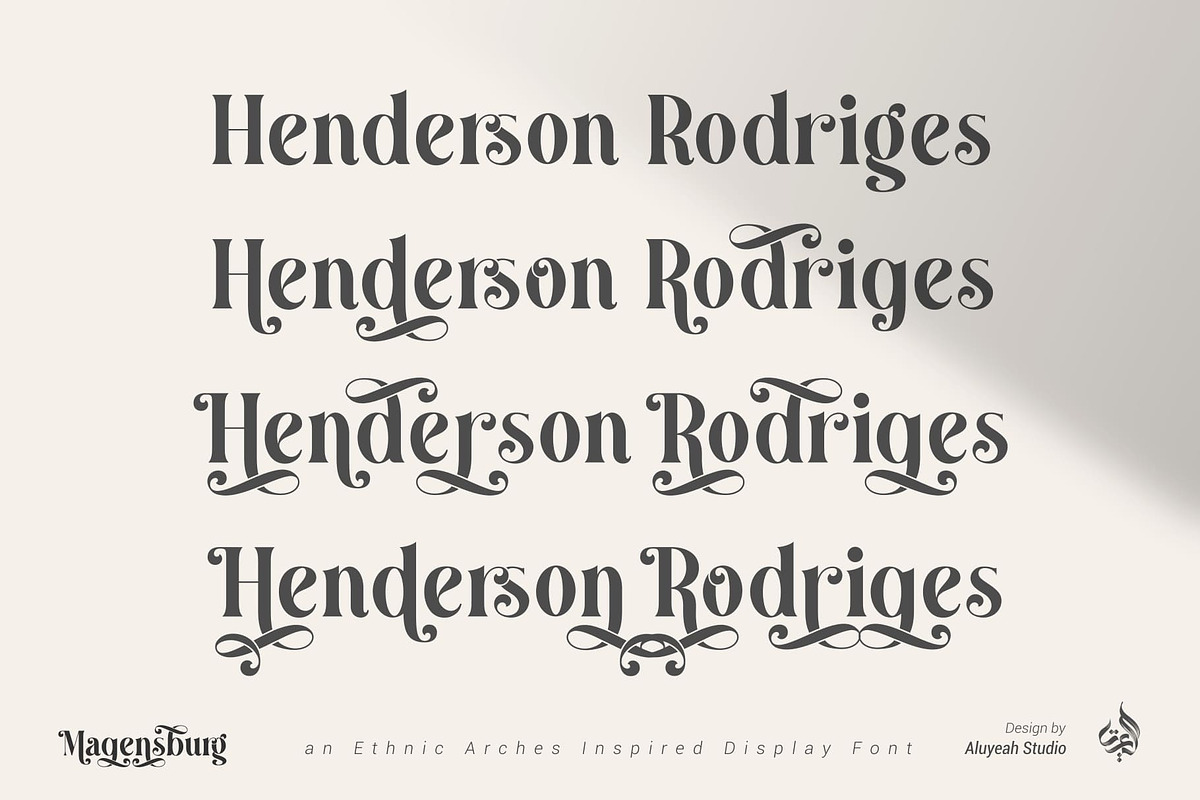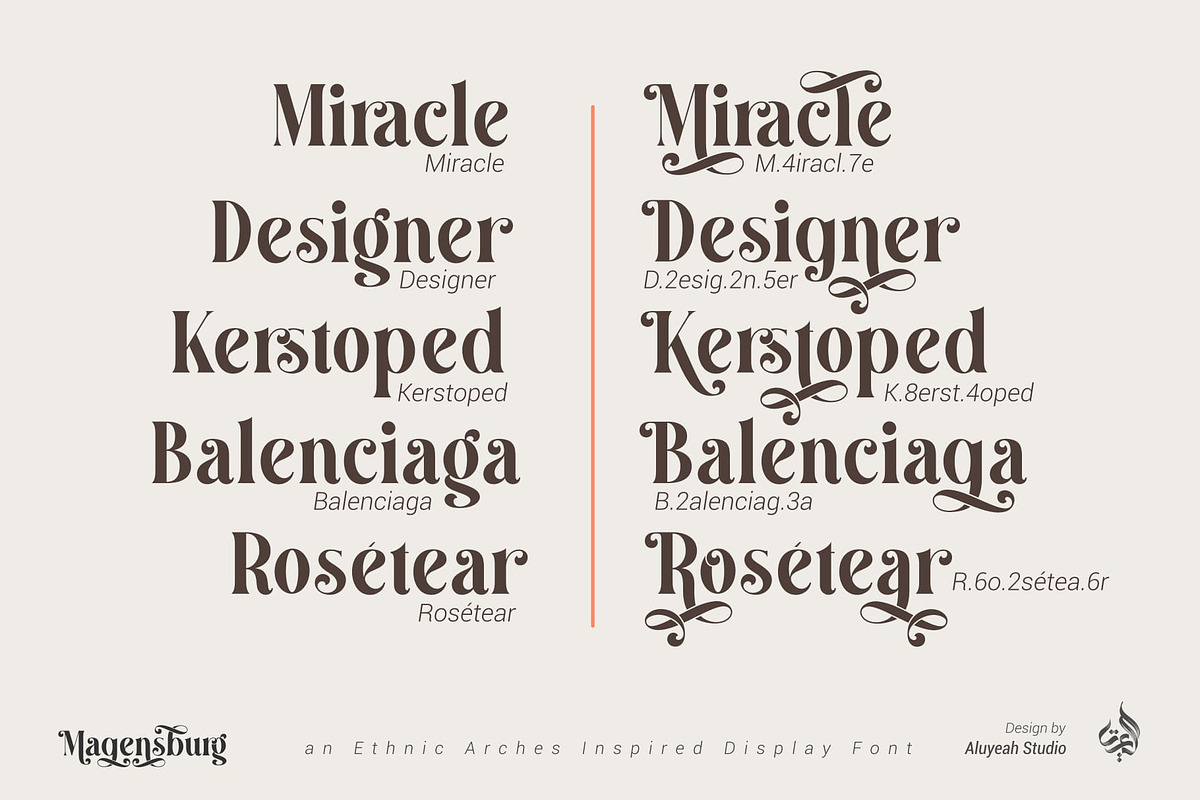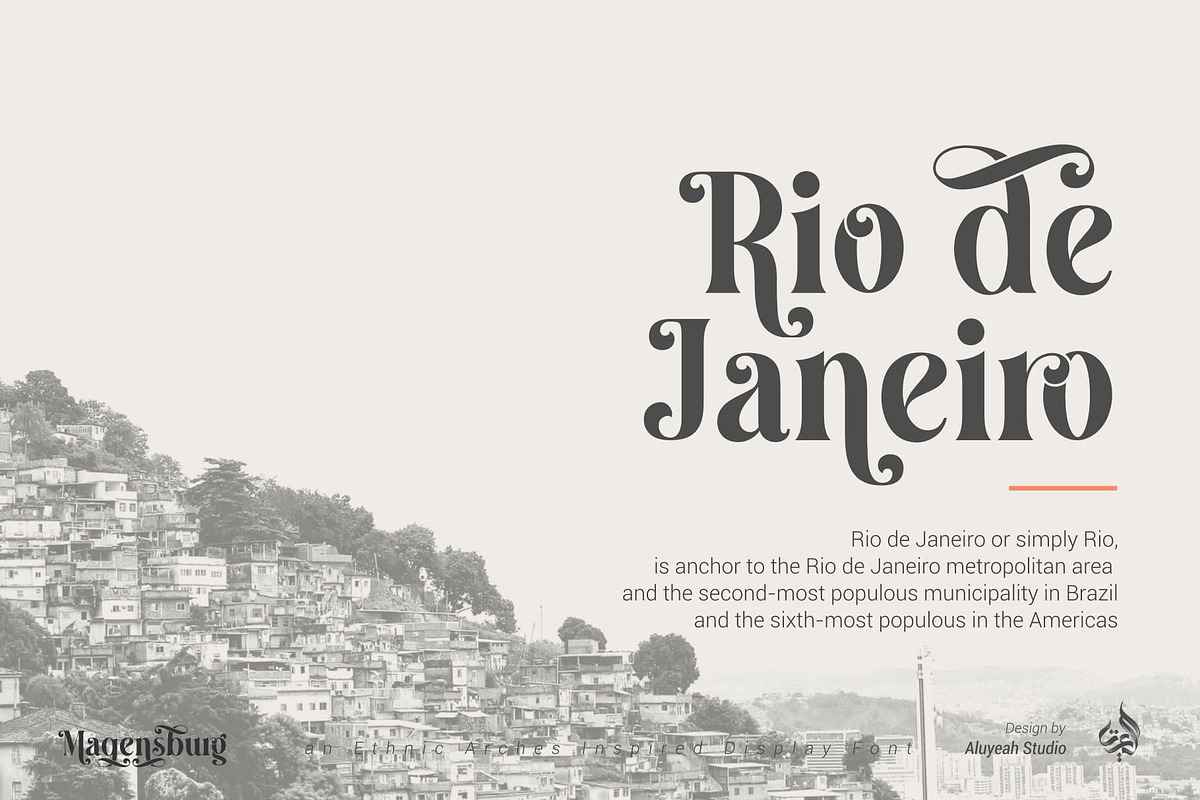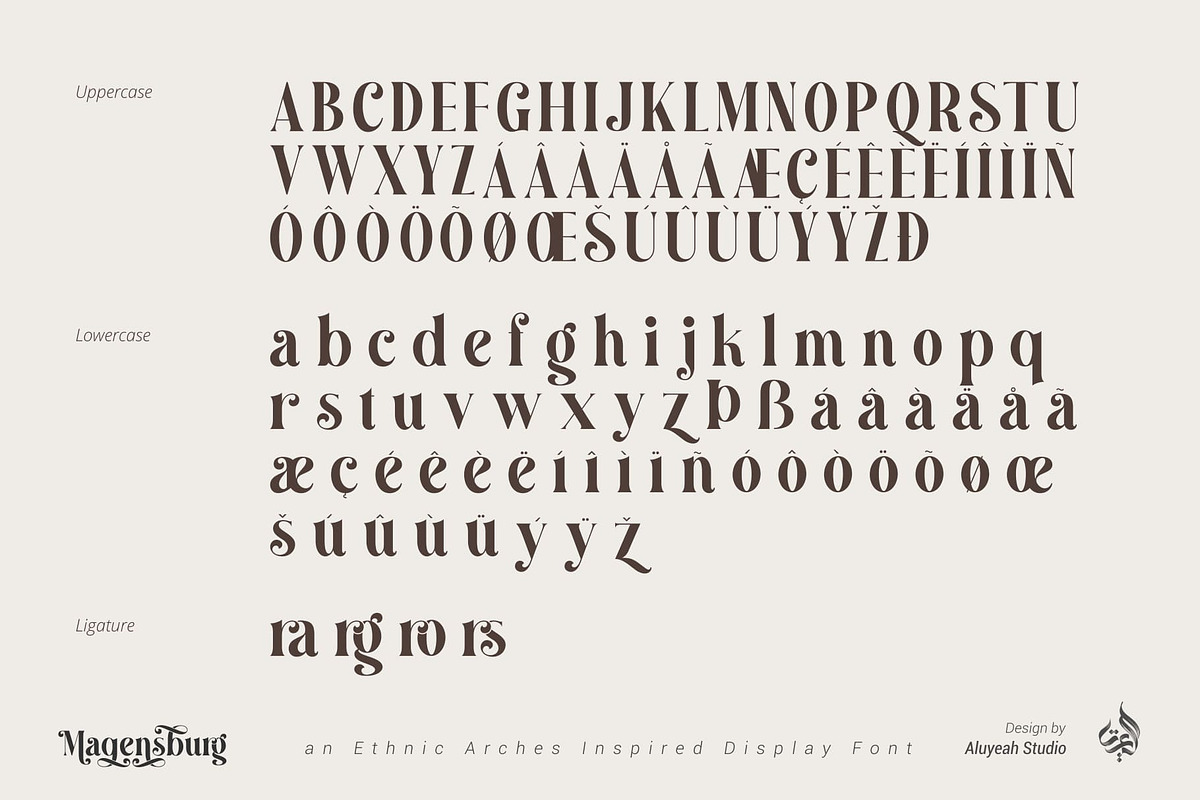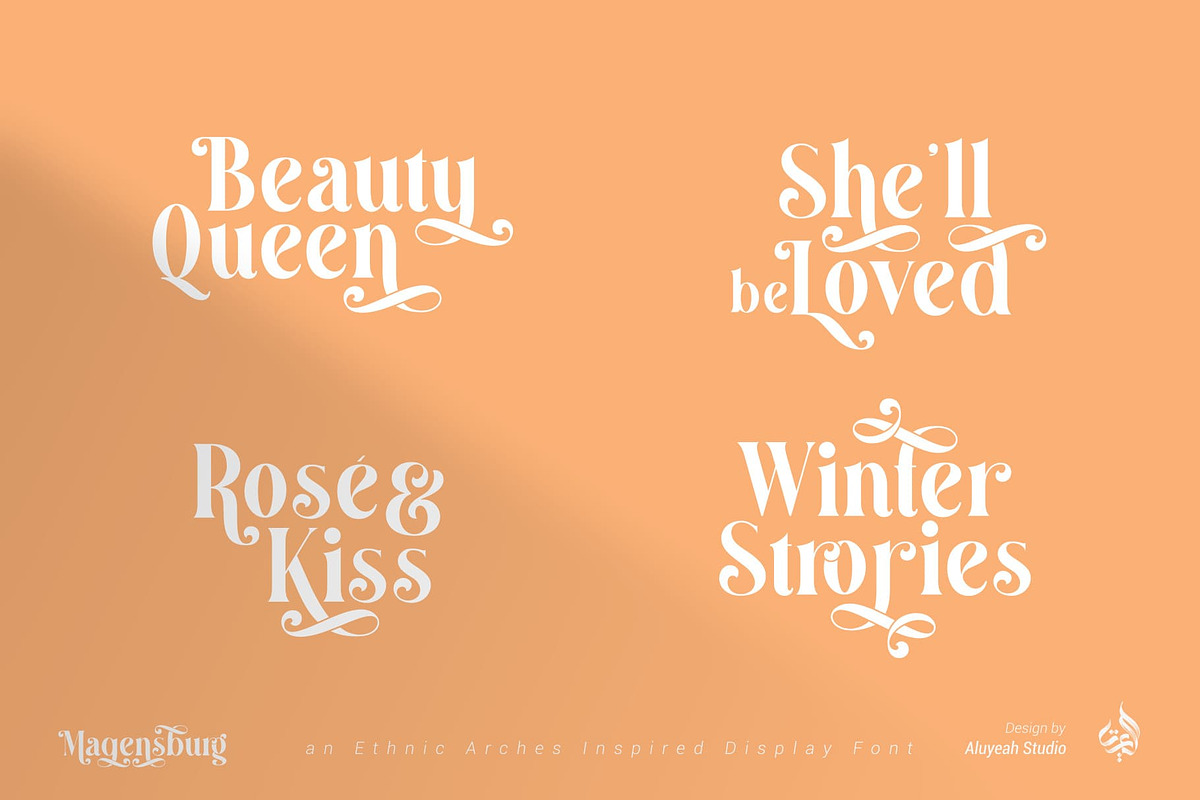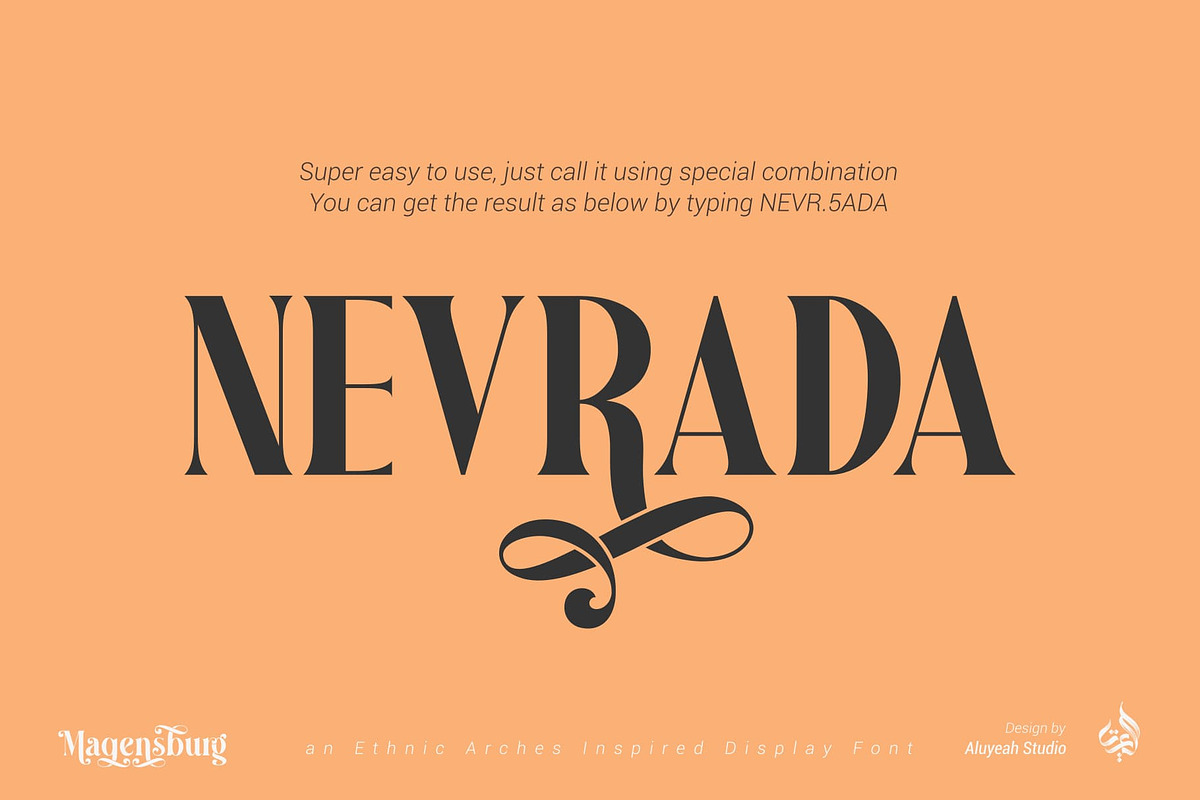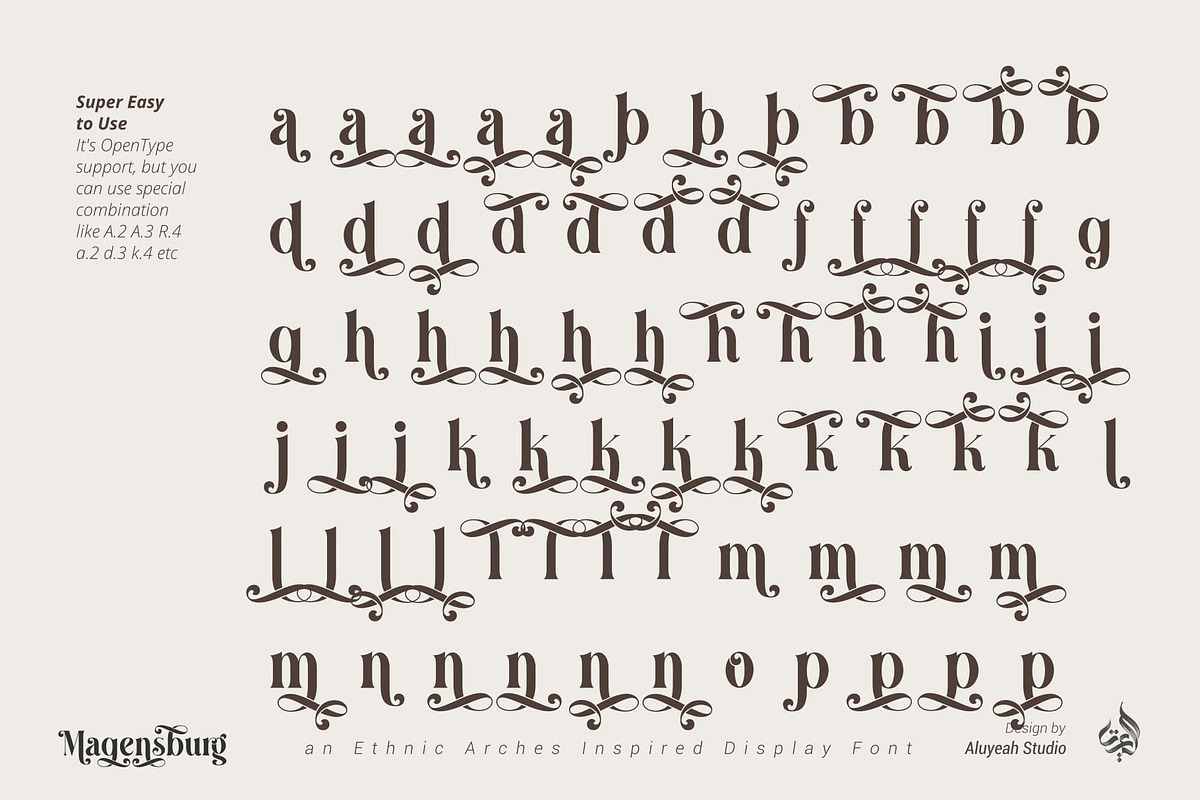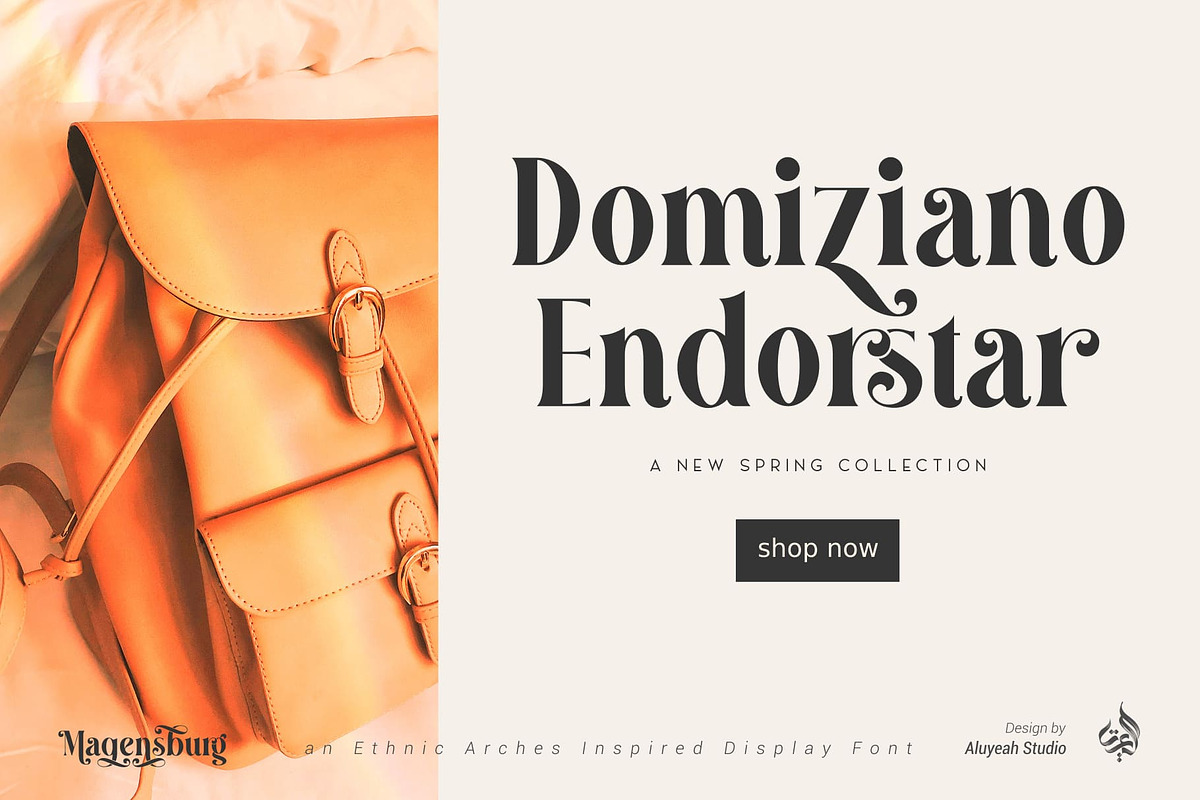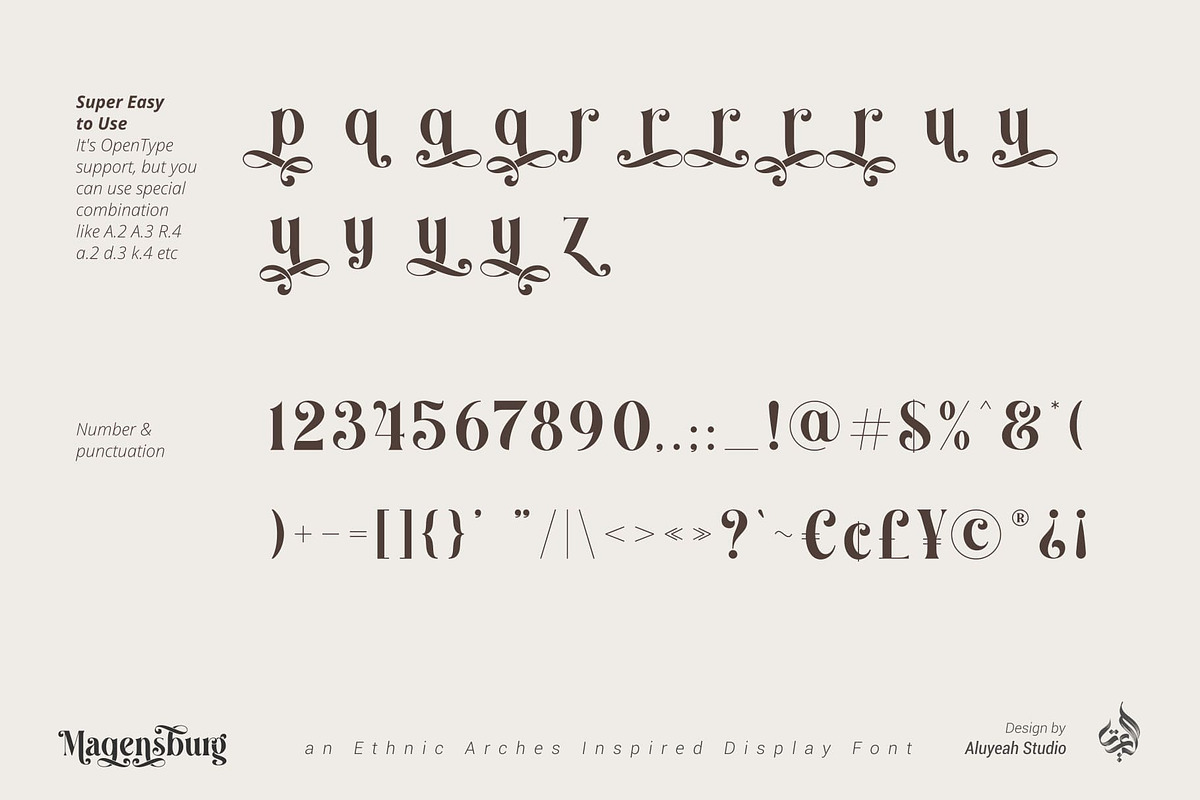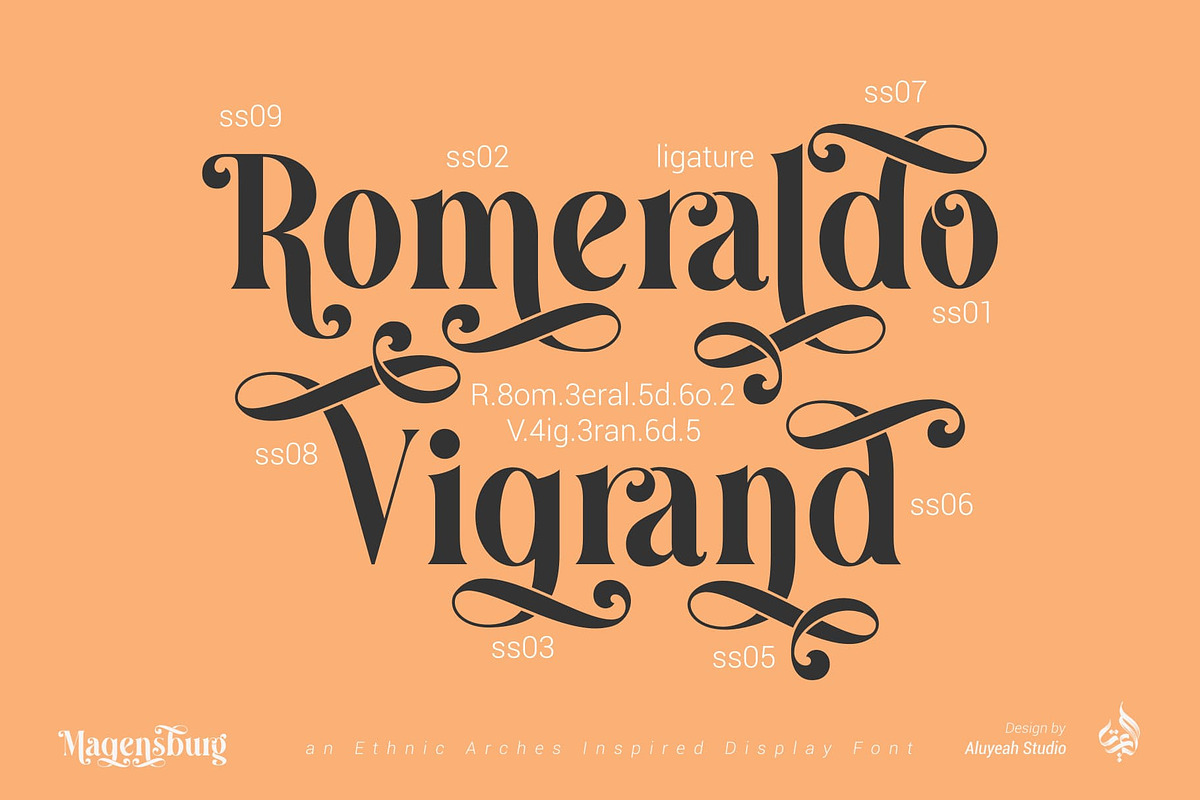
Magensburg | Modern Display Font
Hallo alle! Magensburg is an ethnic arches inspired display font. This font was carefully crafted and inspired ethnic arches in the world. In general, it creates a luxurious and mysterious look in design.
Coming to you with 160+ stunning alternate to create a perfectly mystical, beautiful, classy, elegant design.
Use this font for your fashion brand, resort, cosmetics, invitations, wedding, branding, packaging, magazines, boutique, social media, restaurant, spa, greeting cards, headers, headline and many more.
- OpenType support
- Multilingual support (15 languages)
- Super Easy to Use alternates – It’s OpenType support but you can easily call alternates character using special combination like A.2 R.4 h.8 etc so you don't need special software. To get results like the preview just type M.8ag.3en.3sb.6urg